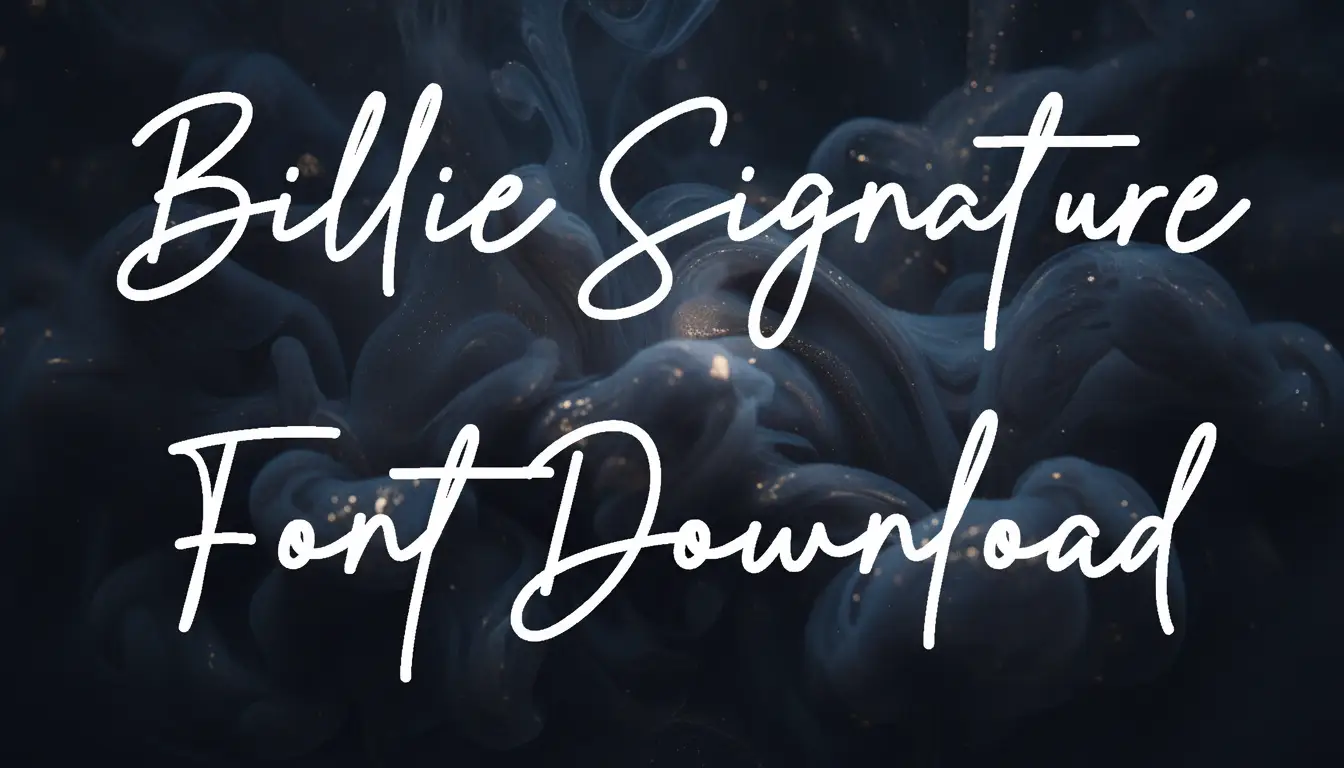
Billie Signature Font
Billie Signature
Billie Signature is a script font created by Jimtype Studio. It has that hand-lettered, flowing feel people look for when regular type seems too stiff. It's a free download, and you can try it with your own text in the preview above first.
What You Can Type With Billie Signature
With complete upper and lowercase letters and all ten digits, Billie Signature is ready for real wording, not just a single headline. Everyday marks like &, !, ? and @ are there too. There are no accented letters like é or ñ, so it's best kept to English text.
Where Billie Signature Works Best
Billie Signature is a natural fit for wedding invitations, logos and signature-style headings. Script fonts read best in short bursts, so keep it to names, titles and one-line quotes. Skip all caps: script capitals are drawn to start a word, not to fill one.
Does Billie Signature support accented letters?
No. Billie Signature has no accented letters such as é, ñ or ü, so it's best for English text.